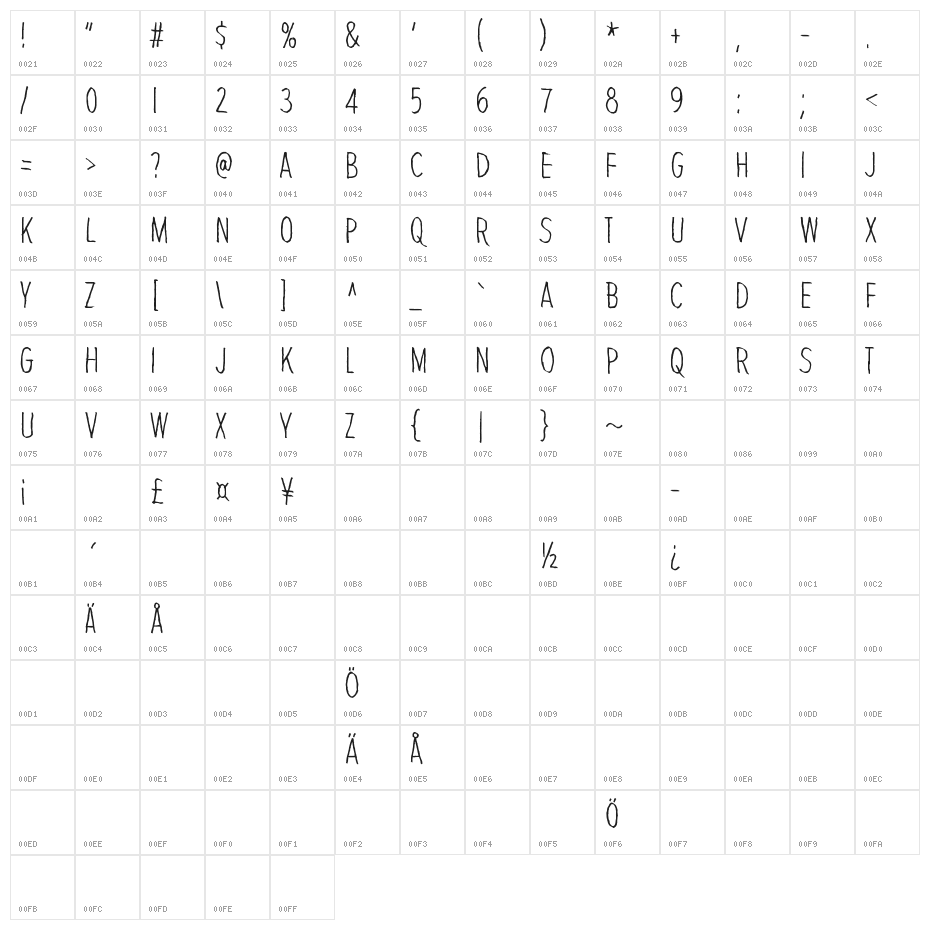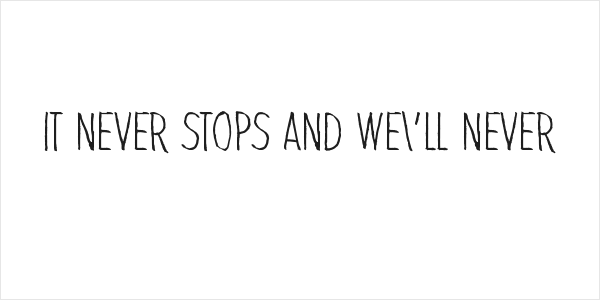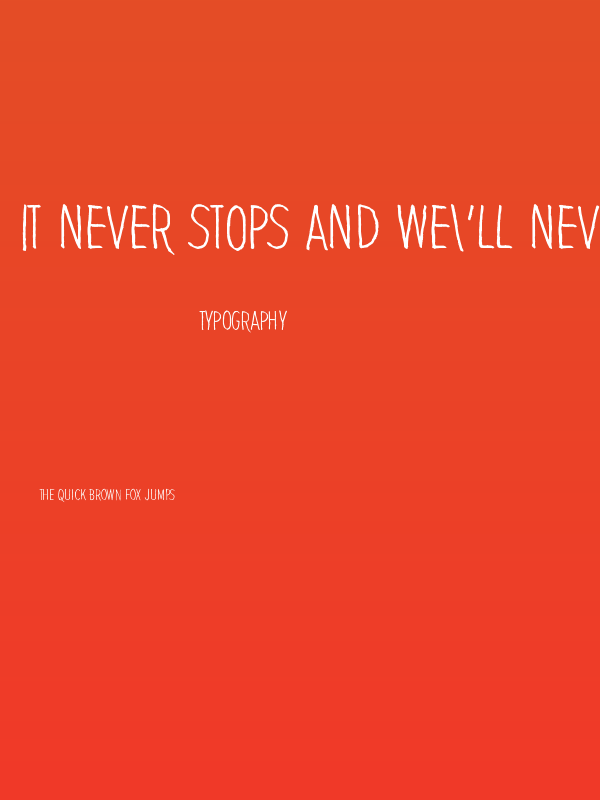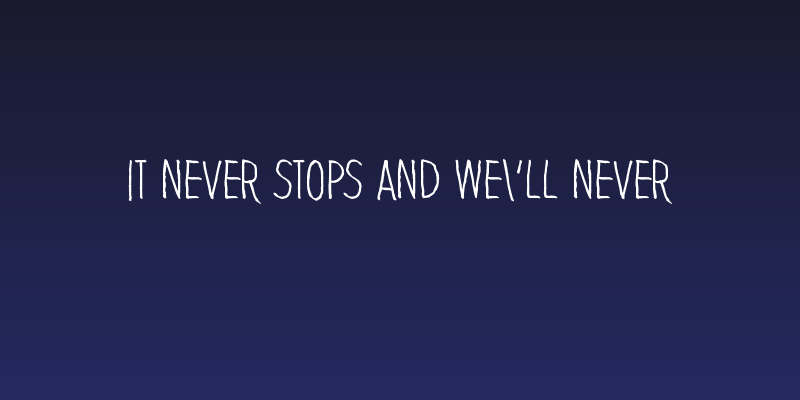
It never stops and we'll never Font
It never stops and we'll never Description
This font features a hand-drawn, organic style with uneven strokes and a slightly rough texture, giving it a casual and informal appearance. The characters are tall and narrow, with a consistent height across both uppercase and lowercase letters. The irregularities in the line thickness add a sense of authenticity and charm, making it ideal for projects that require a personal touch. The numerals and special characters maintain the same hand-crafted aesthetic, ensuring a cohesive look throughout. This font's playful and approachable nature makes it suitable for creative and artistic applications.
| Use Case | Headlines, Creative projects |
| Proposed Projects | Ideal for greeting cards, invitations, posters, and creative branding projects. |